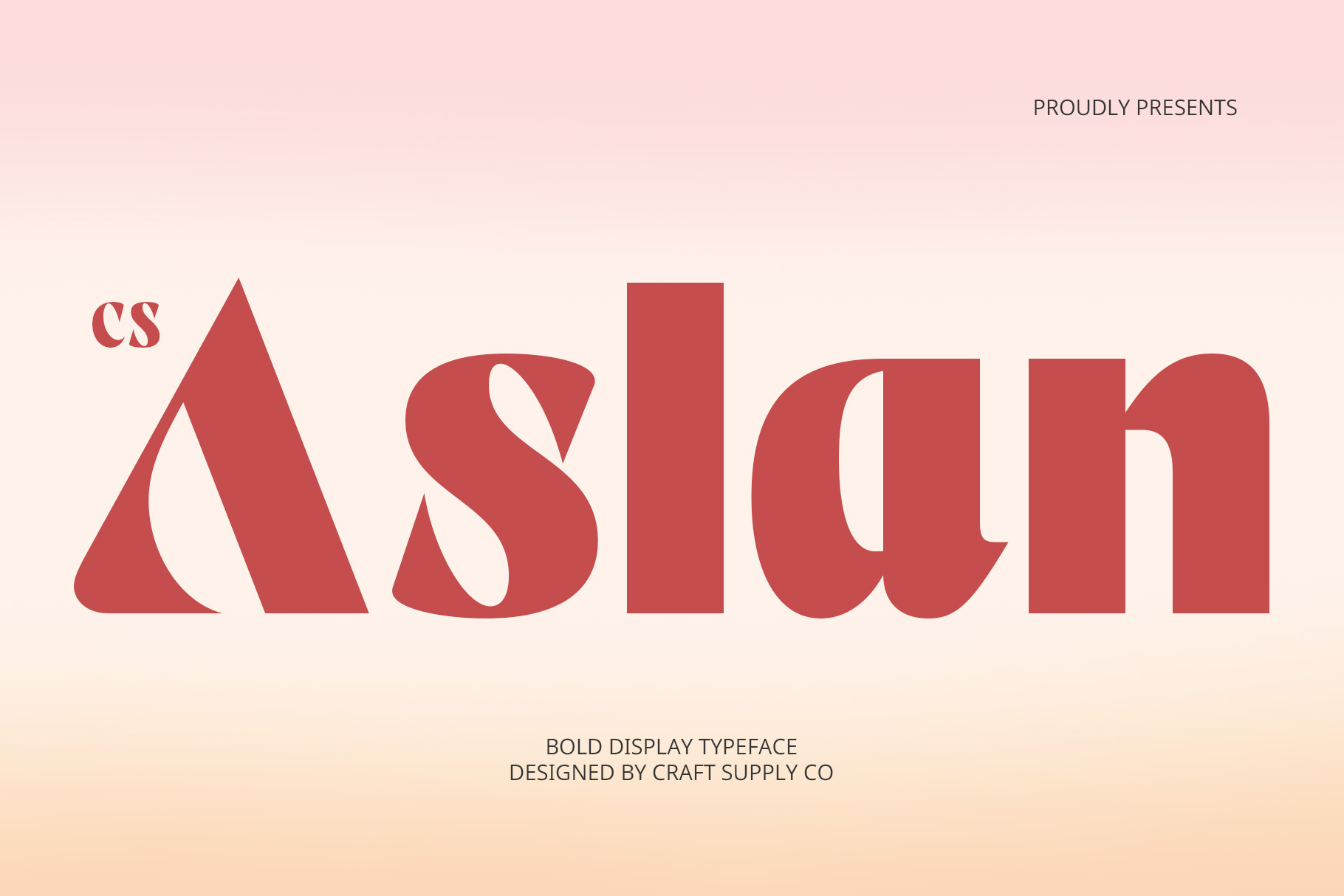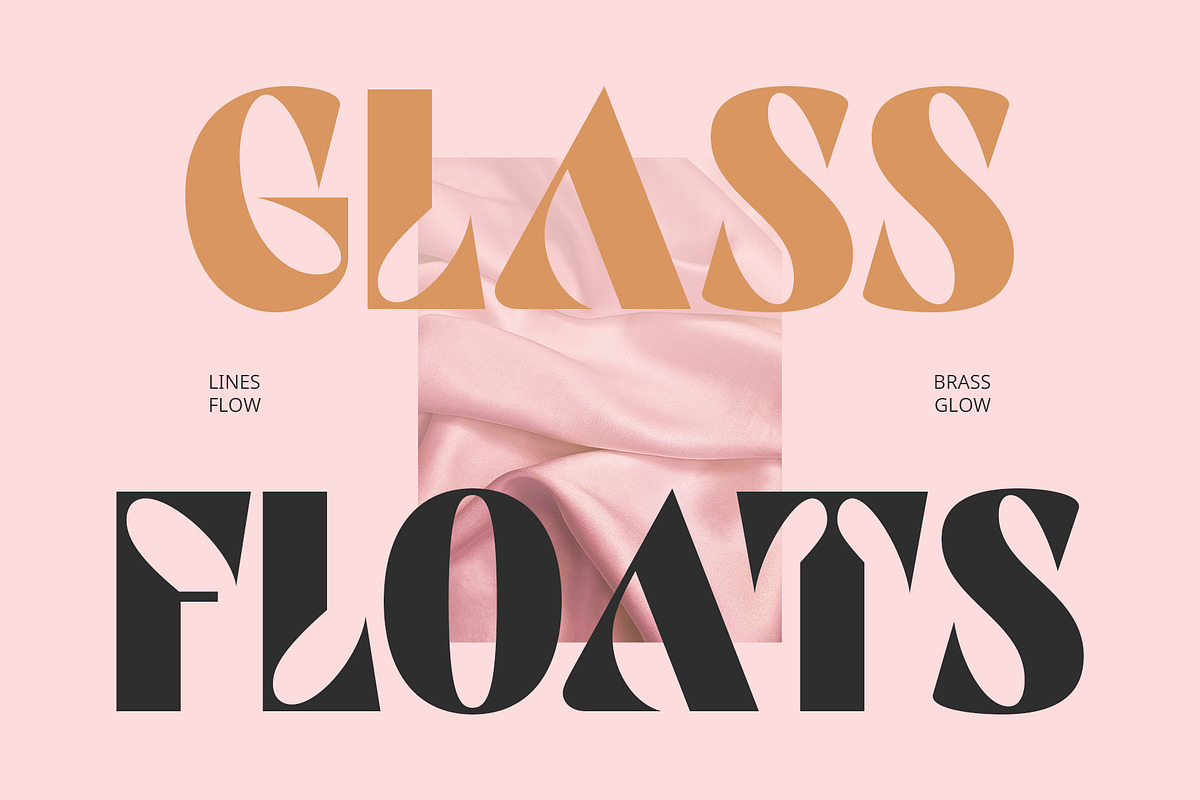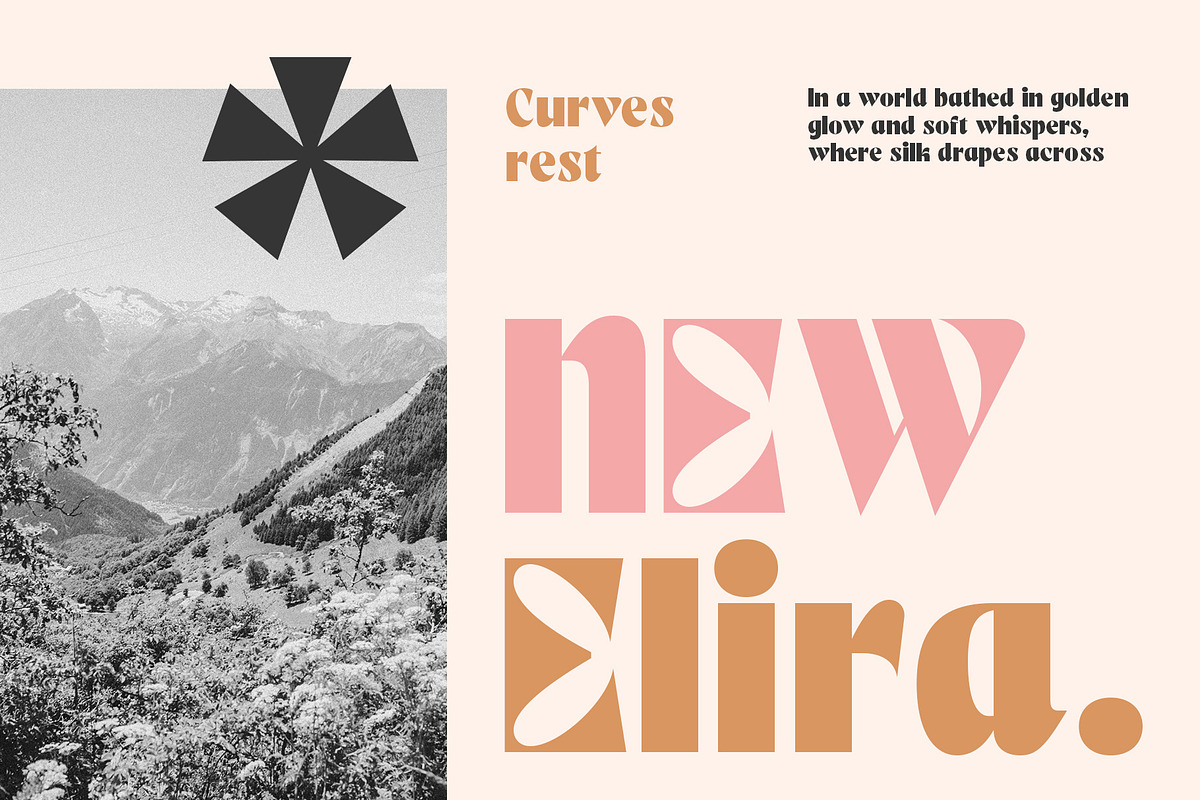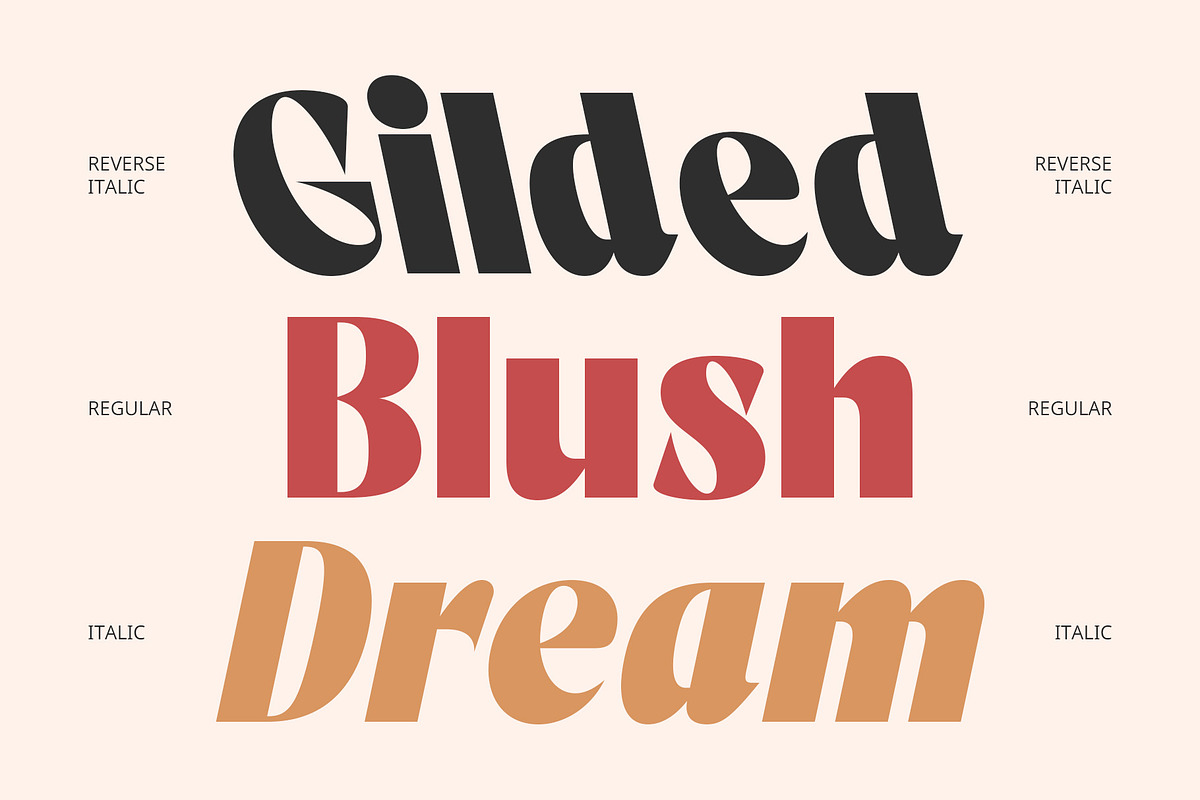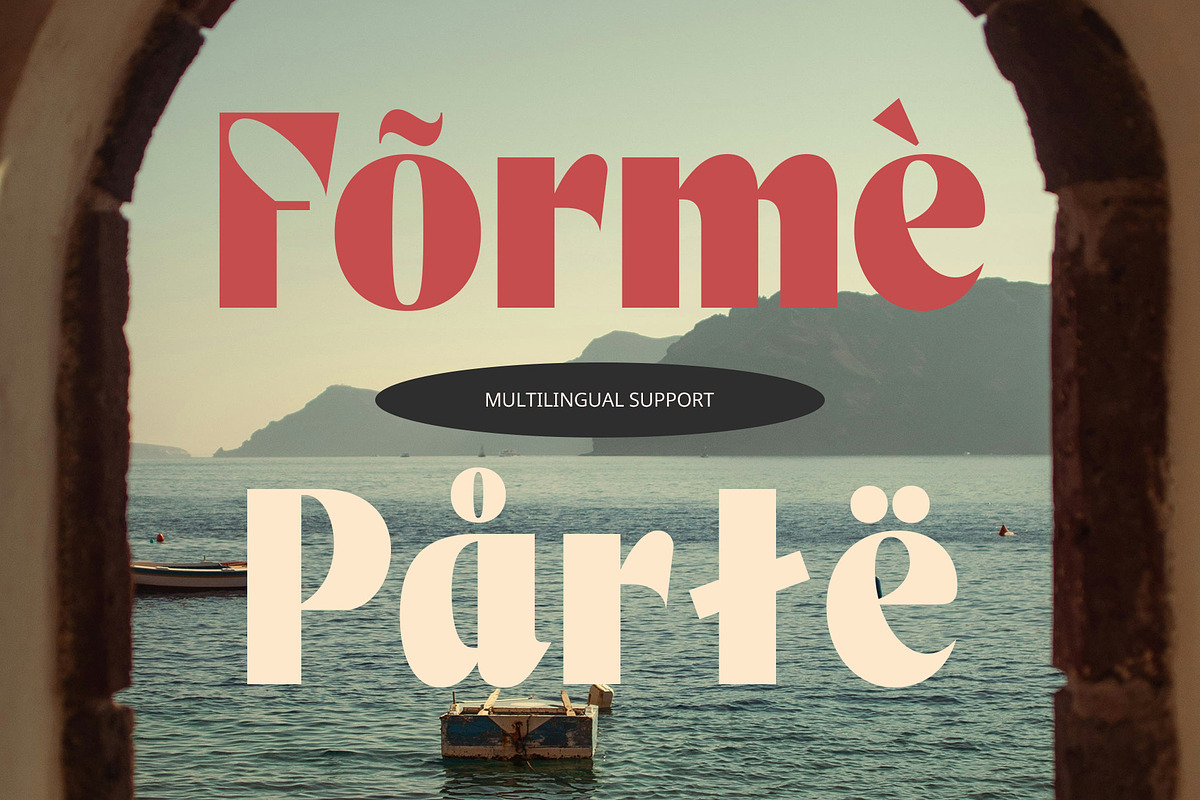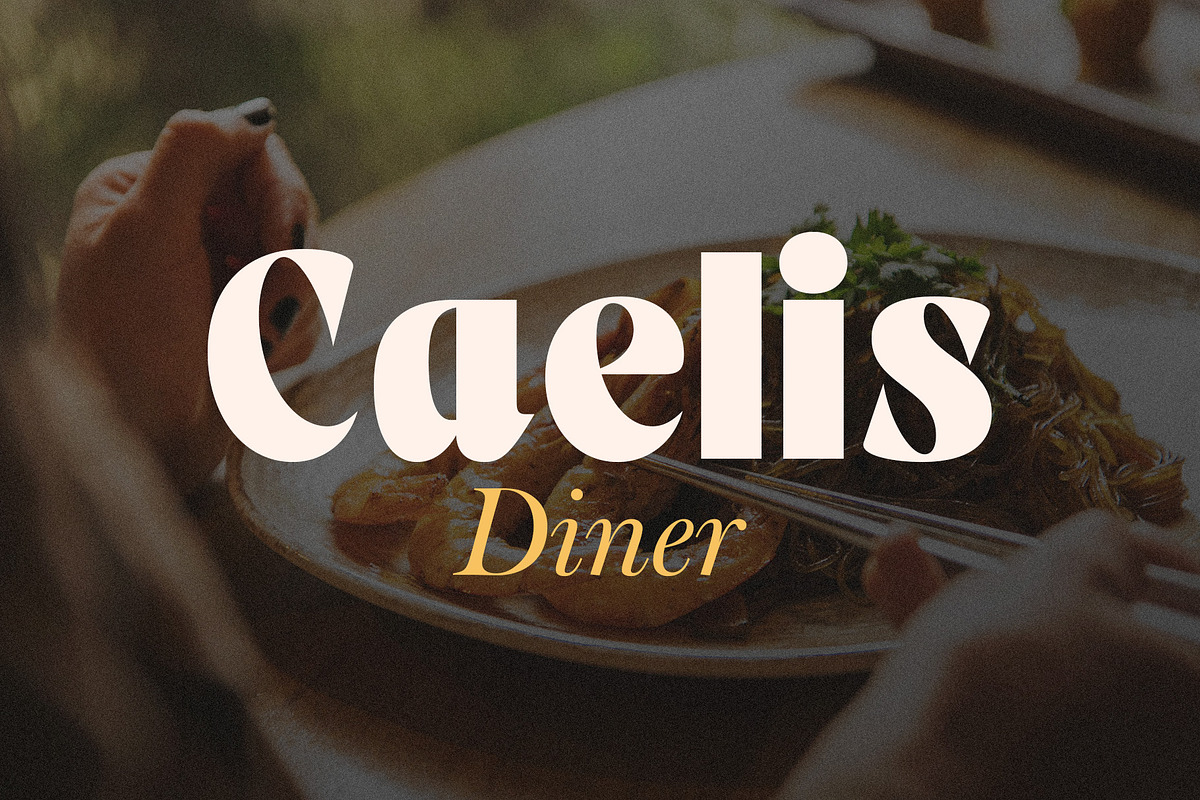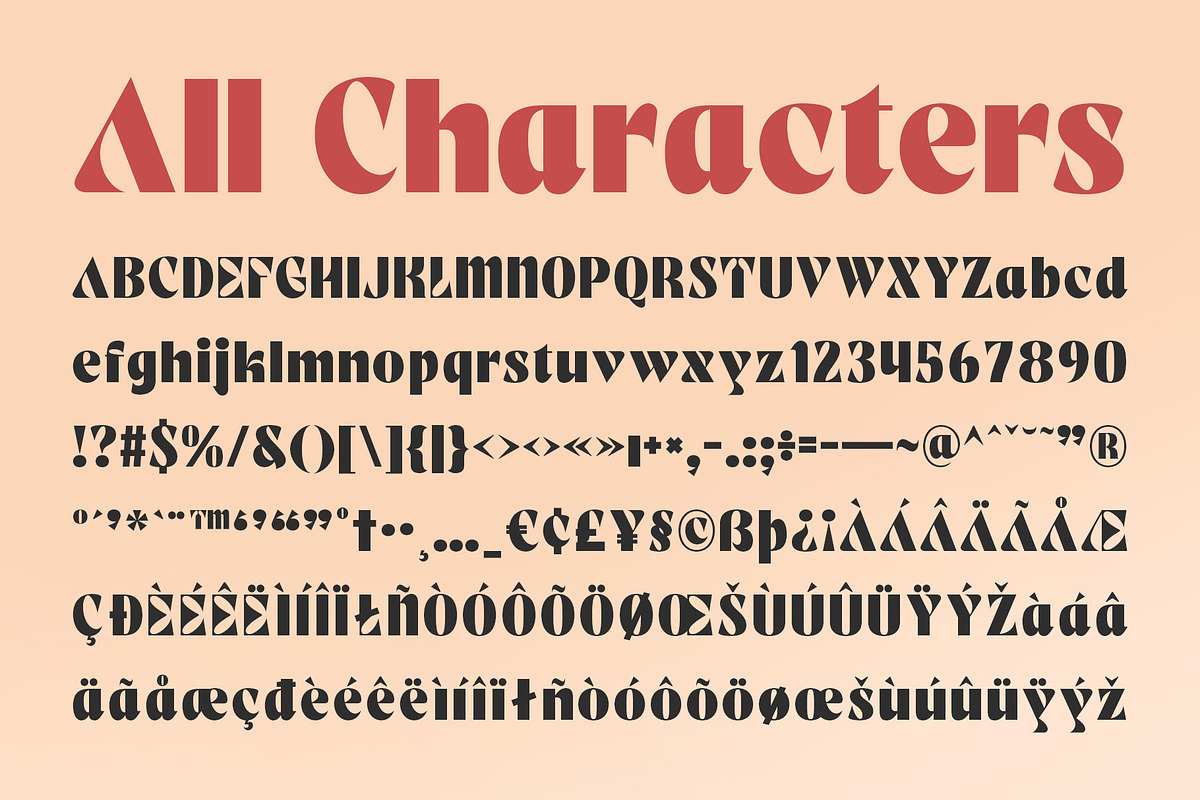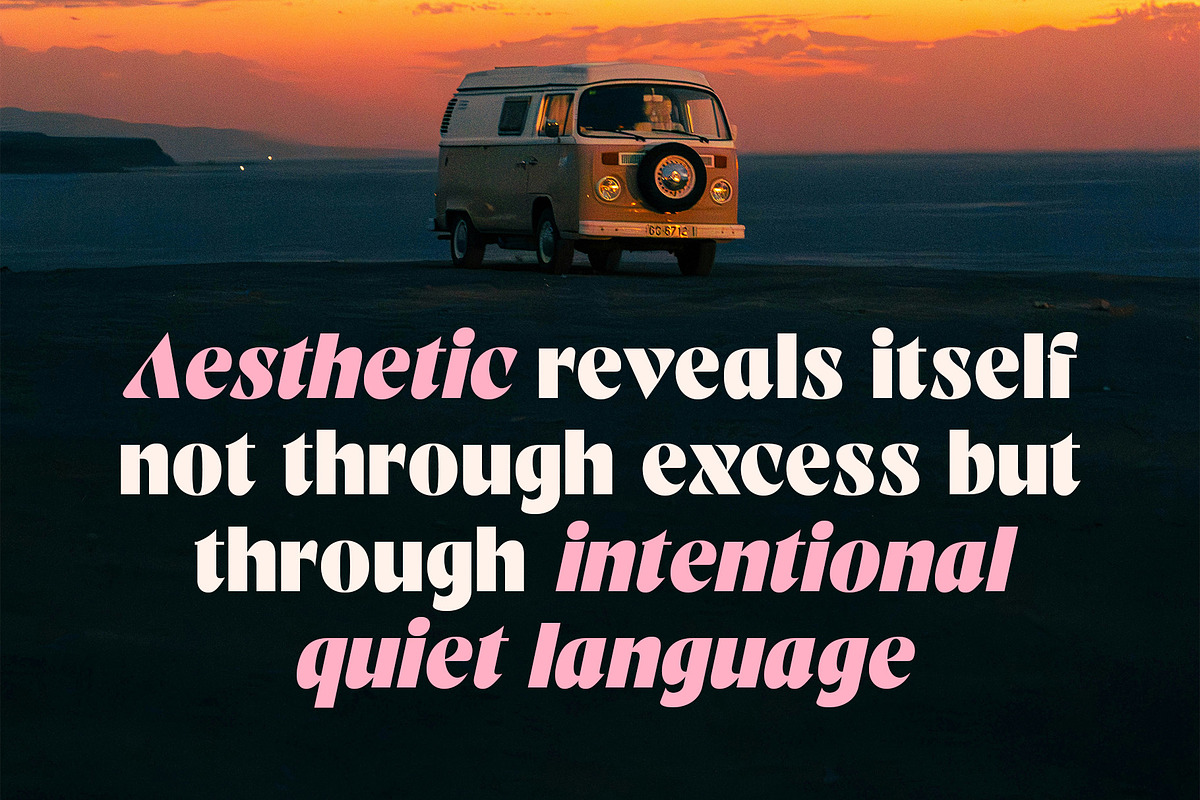
CS Aslan – Bold Font
CS Aslan Font – Bold Elegance, Timeless Strength
Classic Power Meets Contemporary Style CS Aslan is a bold modern sans serif font designed with strong, confident letterforms and refined detailing. It blends the solidity of traditional sans serif structure with a clean, contemporary finish, giving every word a powerful and polished voice.
Elegance Built with Authority The character of CS Aslan lies in its ability to balance boldness with grace. This modern sans serif font features pronounced serifs, sharp edges, and carefully tuned proportions—offering a look that is both commanding and classy. This makes it especially effective in conveying credibility, professionalism, and luxury in a variety of creative settings.
Designed for Impactful Visual Identity Crafted to create an aesthetic impression, CS Aslan is perfect for brands that want to be seen as strong yet refined. Its bold weight ensures visibility across different media, while its graceful curves maintain a timeless charm. Use it for logos, titles, product labels, or web banners to achieve a rich and authoritative tone that resonates with modern elegance.
Versatility Across Premium Applications Whether you’re designing for editorials, branding, advertising, or luxury print collateral, CS Aslan offers both versatility and visual strength. Its adaptable style brings clarity and sophistication to every composition, while its timeless structure allows it to remain relevant across trends and design movements.